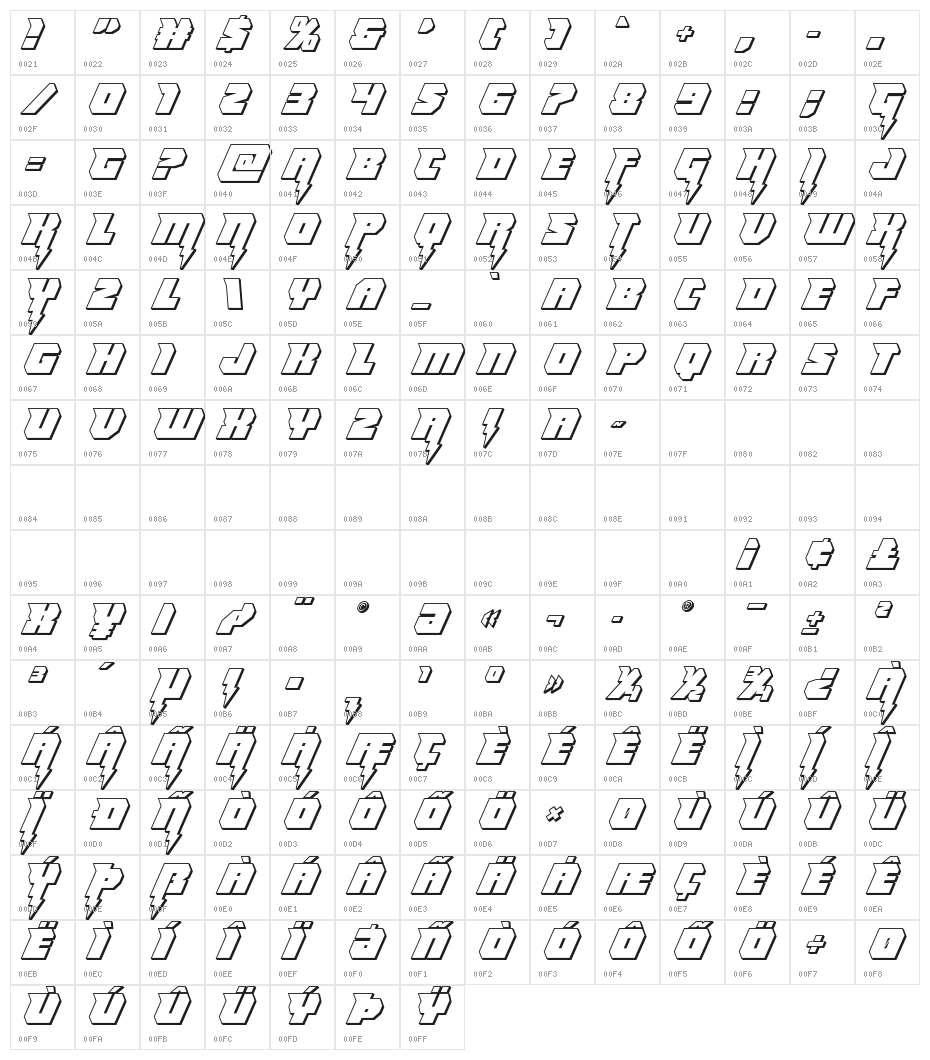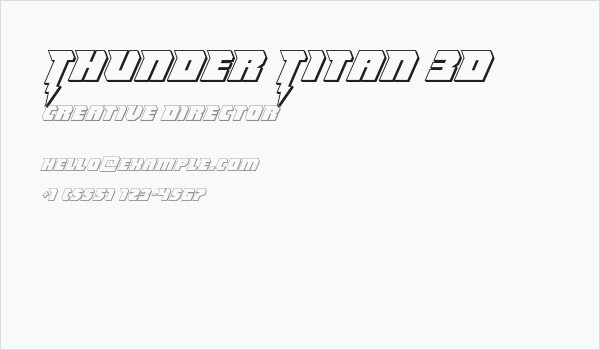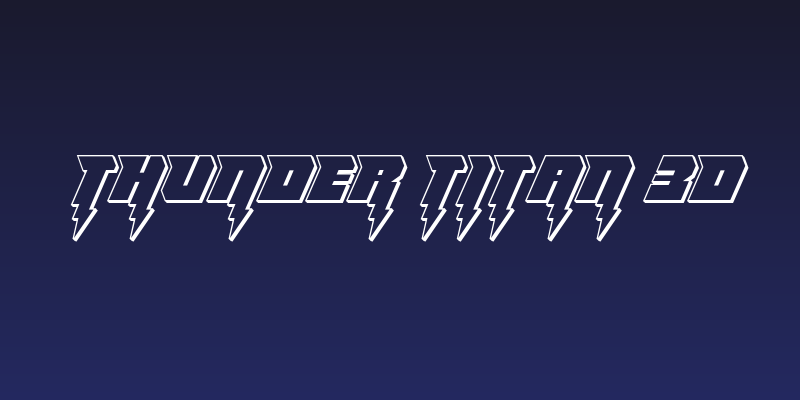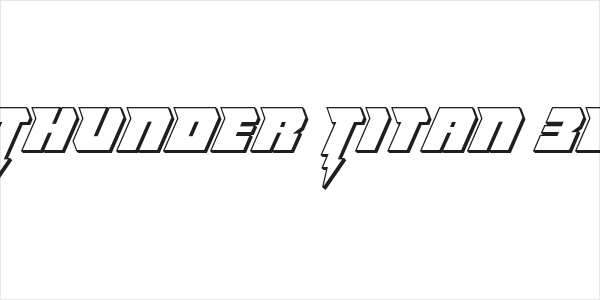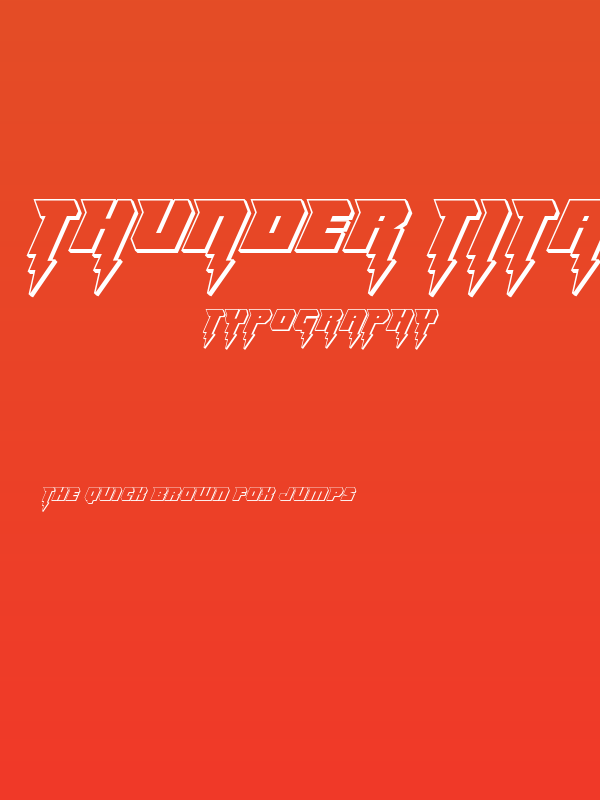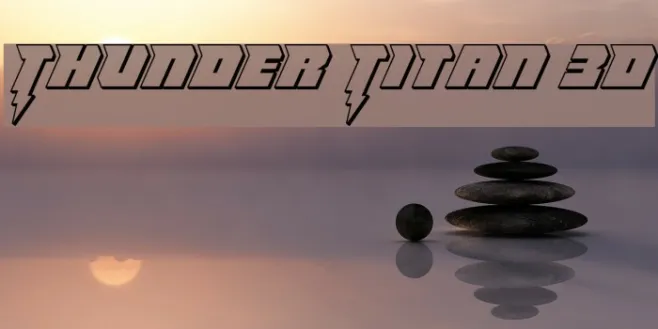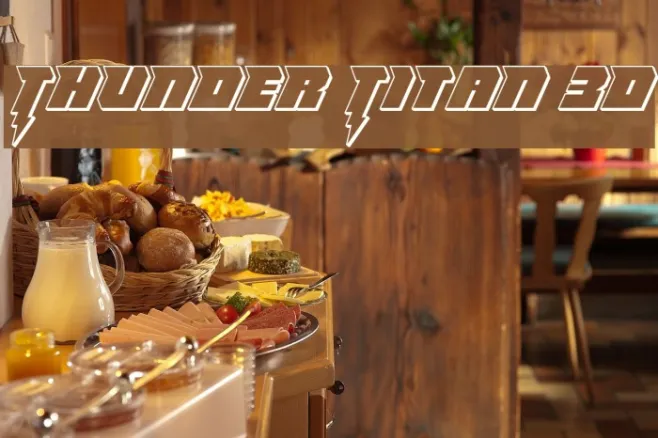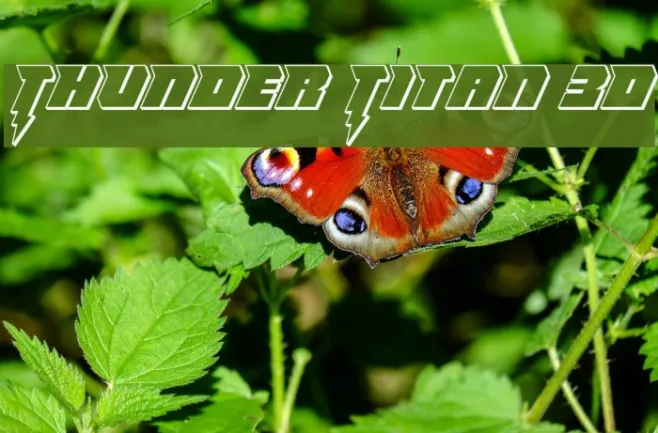
Thunder Titan 3D Font
Thunder Titan 3D Description
This font features a bold, electrifying design with a 3D effect that gives each character a dynamic and powerful appearance. The uppercase letters are designed with sharp, angular edges and lightning bolt motifs that extend from the bottom, creating a sense of movement and energy. The numbers and special characters maintain this bold style, ensuring consistency across all glyphs. The font's thick outlines and shadowing enhance its three-dimensional look, making it stand out on any background. Its unique style is perfect for projects that require a strong, impactful visual presence.
| Overall Style | Modern, Energetic |
| Proposed Projects | Ideal for use in video game titles, movie posters, sports team logos, and any project needing a bold, energetic typeface. |